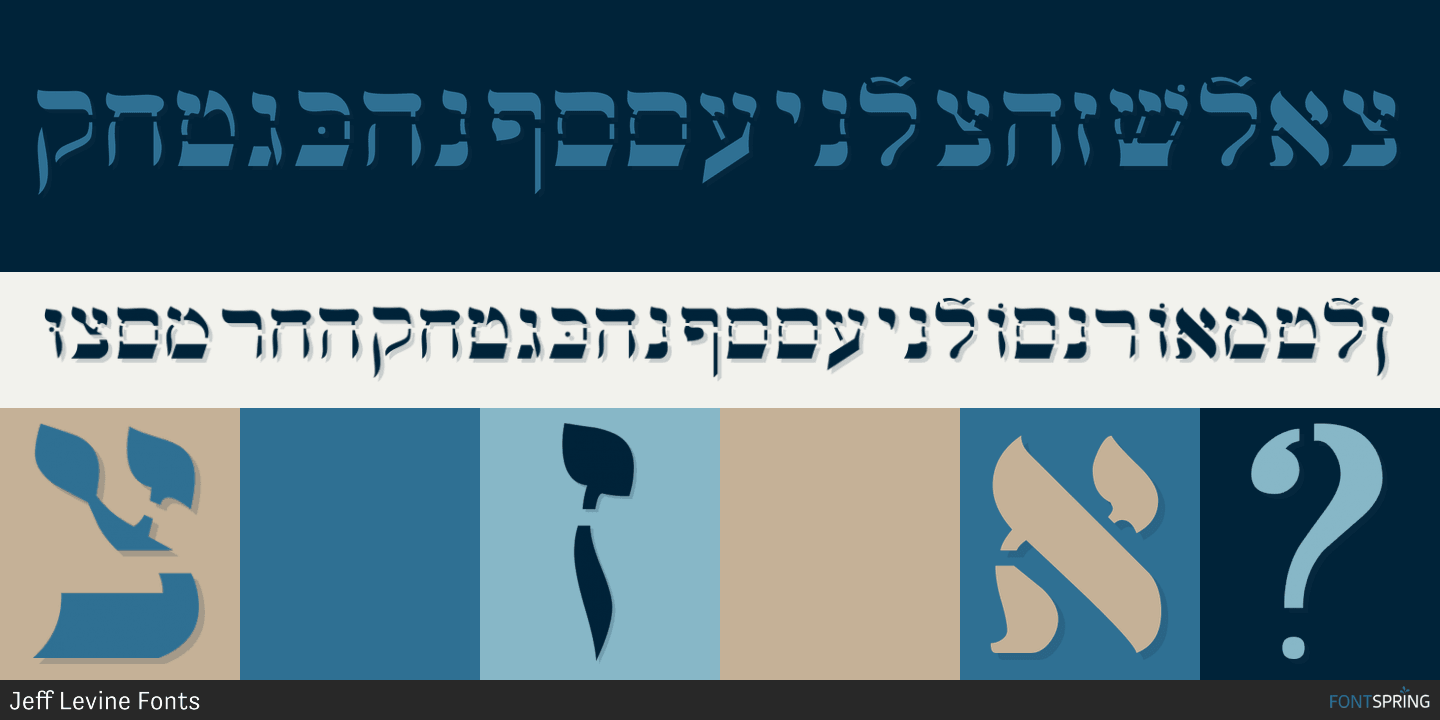
Shicken Zoop JNL is a novelty and foreign font published by Jeff Levine Fonts.
Shicken Zoop JNL is based on an old lettering stencil from the early 1950s.
The A-Z and a-z keystrokes contain the bulk of the Hebrew alphabet. Additional letters are found on the exclamation point, quote and apostrophe keystrokes. Vowels are positioned on the period, comma, hyphen, colon and semicolon.
Please note that this is not a normal Hebrew font; it is in effect a latin font with Hebrew letters appearing in place of latin letters. It will not allow you to copy and paste with other samples of Hebrew text.